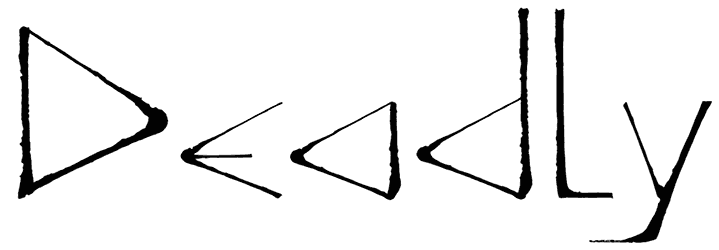
Deadly Font
You don’t need complex plans to scare your audience, and you would easily instill fear in them with a modest and grim, deadly face. As an emo font with a demonic skinny outward, you can satisfy everyone with any taste of darkness. Flyers, games, movies, or the same items, Deadly can cause their levels to high.
Mark making can be a very effective technique for designers to produce any kind or variety of patterns and textures. This particular typeface is called Deadly based on the shape and texture of the characters and how they work together with certain words. By changing the colour, size and background, it may be possible to change the personality of the type. Pink letters on a white background may produce a different meaning to red on black which might possibly be used to advertise a horror movie or a heavy metal band.